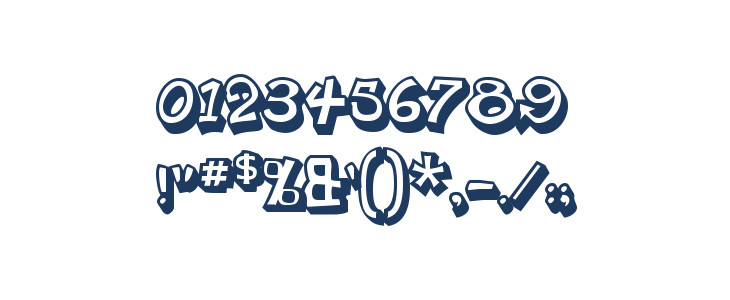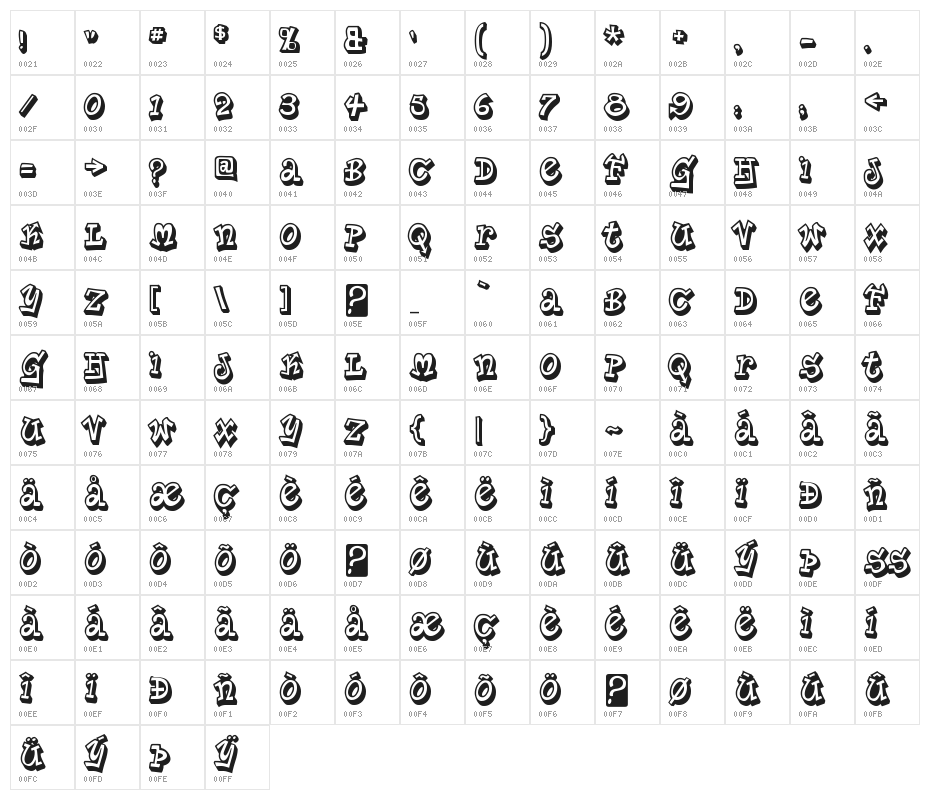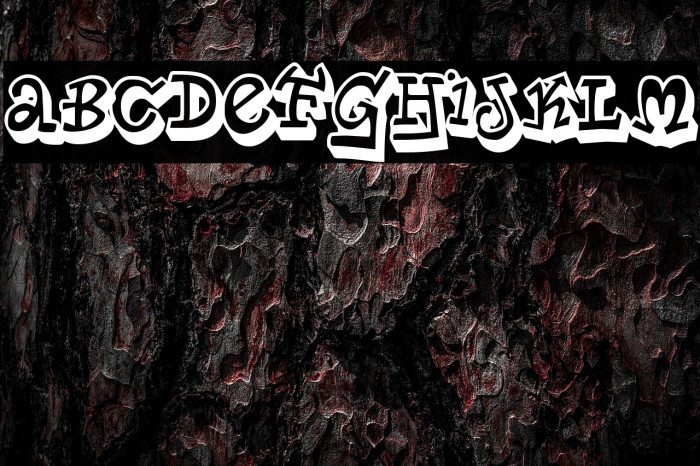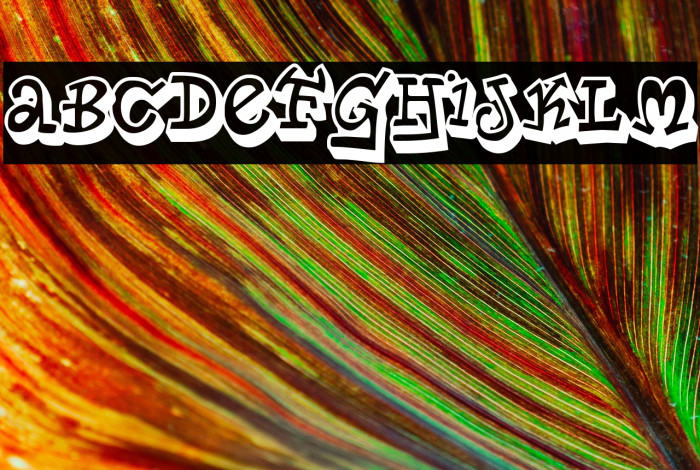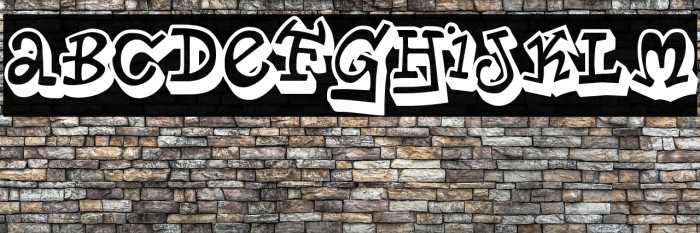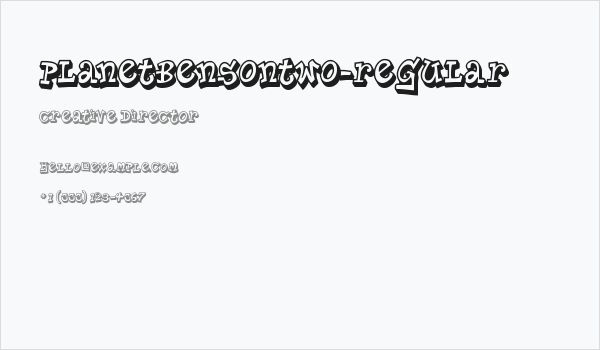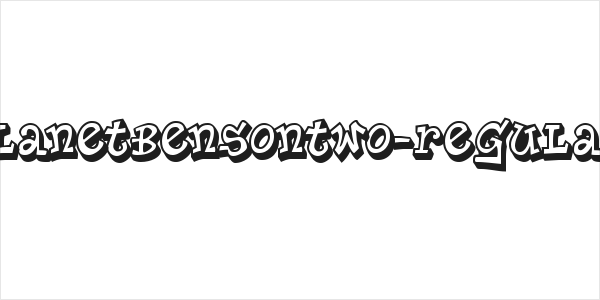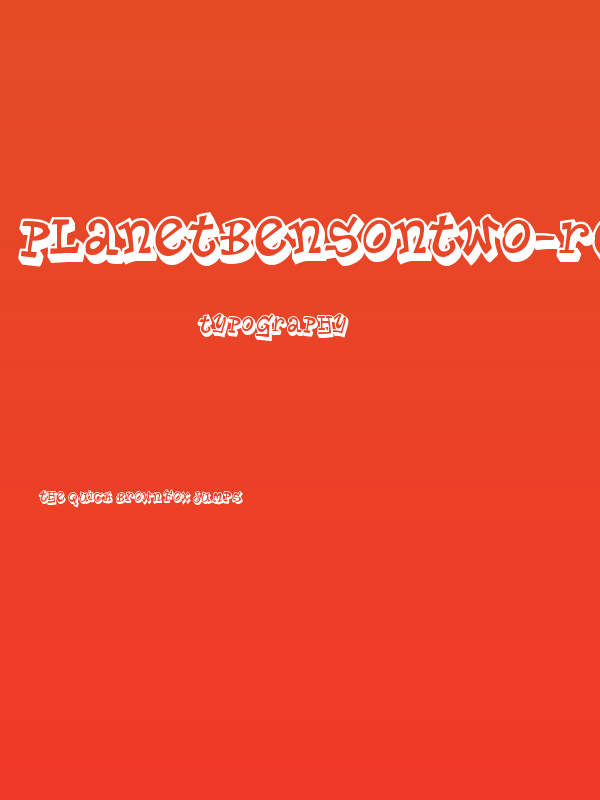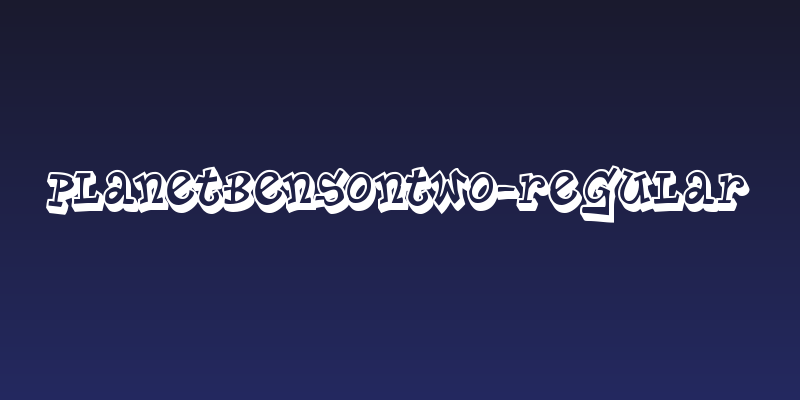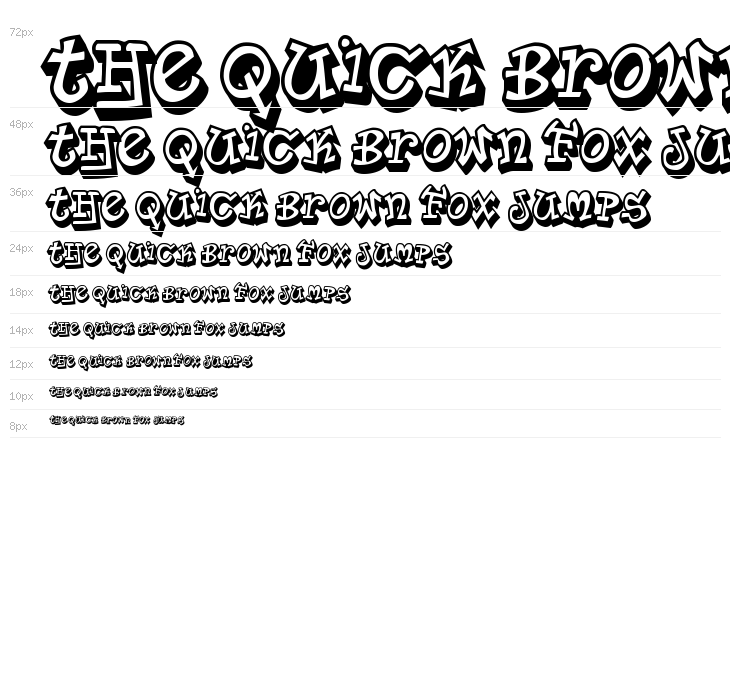
PlanetBensonTwo-Regular Font
PlanetBensonTwo-Regular Description
This font features a bold, playful, and dynamic style with a graffiti-like appearance. The characters are outlined with a thick black shadow, giving them a three-dimensional effect. The strokes are uneven and exaggerated, adding to the casual and energetic feel. Each letter has a unique flair, with some characters leaning or curving in unexpected ways, enhancing the overall lively aesthetic. The font is highly decorative, making it ideal for eye-catching designs.
| Proposed Projects | Ideal for street art designs, youth-oriented branding, event posters, and creative social media graphics. |